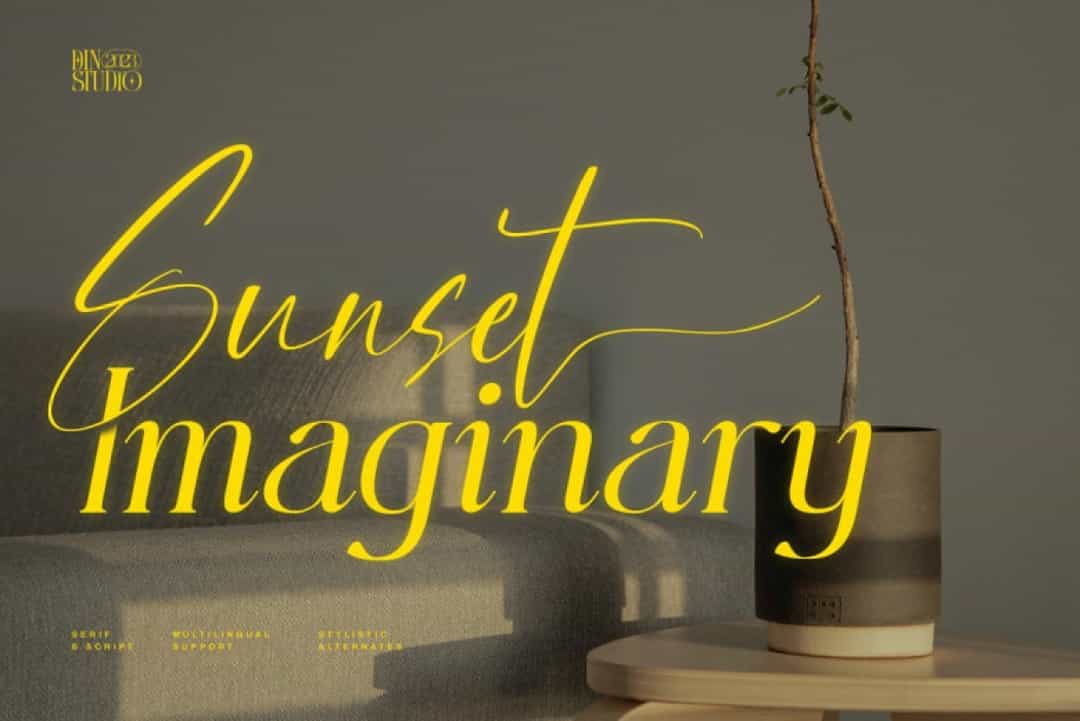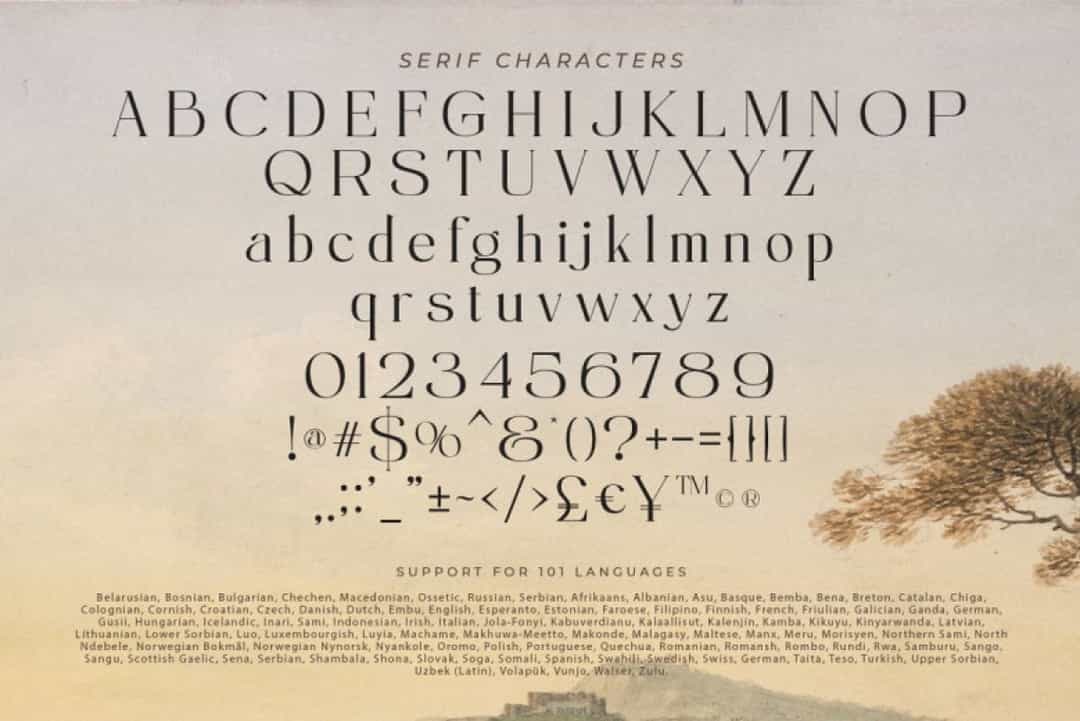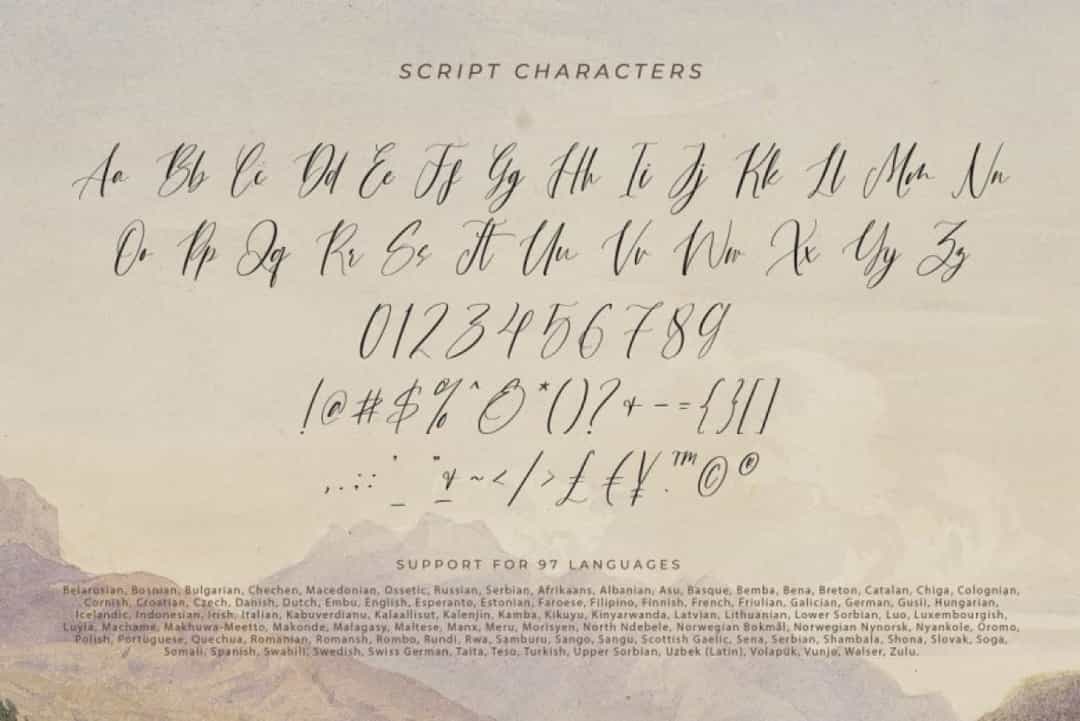
Sunset Imaginary Duo fonts offer an exquisite blend of handwritten appeal and serif typeface beauty – the result being a stunning and versatile typographic pair perfect for many design projects. Their first font from The Sunset Imaginary Duo collection features exquisite handwritten letterforms connected to one another seamlessly to produce a fluid script effect.